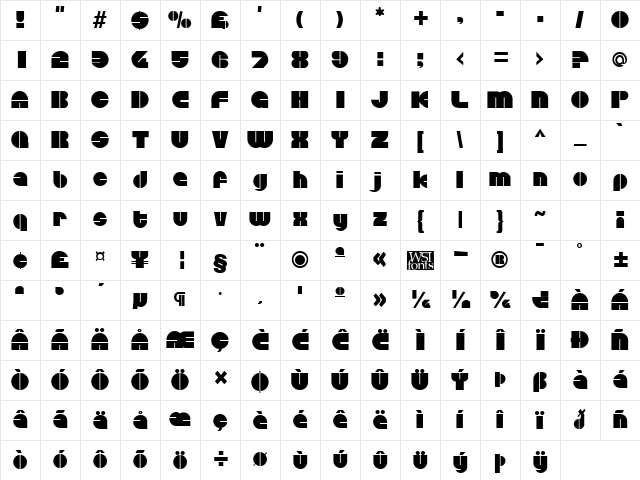
Discotheque Regular
Discotheque Family
Design Context for Discotheque
Discotheque is a composed and adaptable typeface that performs quietly and consistently across a wide range of design contexts.